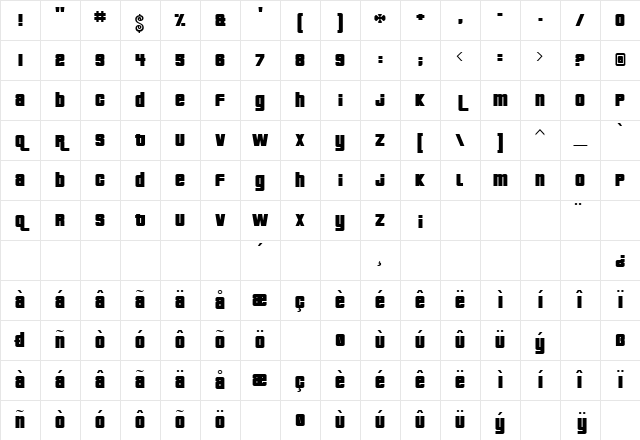
Pricedown Regular Free Font
Pricedown Regular
Foundry: Larabie Fonts
Complete Pricedown Regular glyph index. Displaying only characters natively supported by Pricedown Regular font.
Design Context for Pricedown
Pricedown is a composed and adaptable typeface that performs quietly and consistently across a wide range of design contexts.
Pro Tip: Use Pricedown in both headline and body roles to test its range before committing to a single application.
Who designed the Pricedown Regular font?
This font was published by Larabie Fonts. Check the technical specs section for copyright and designer details.